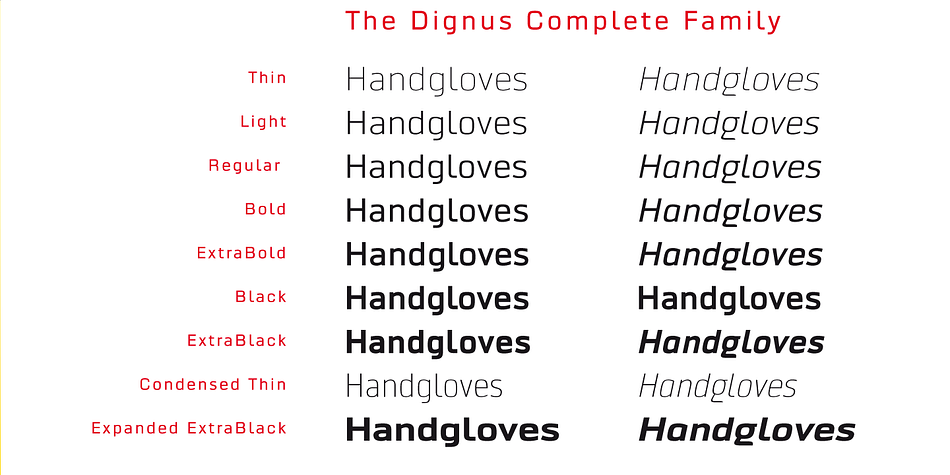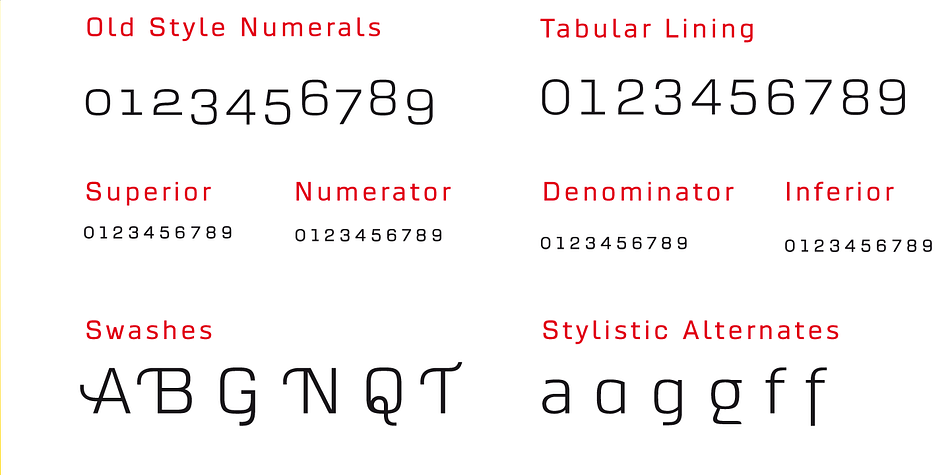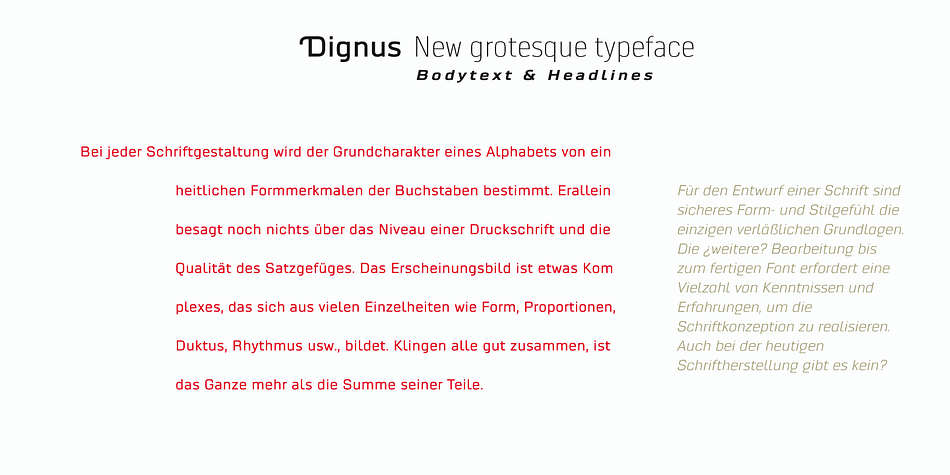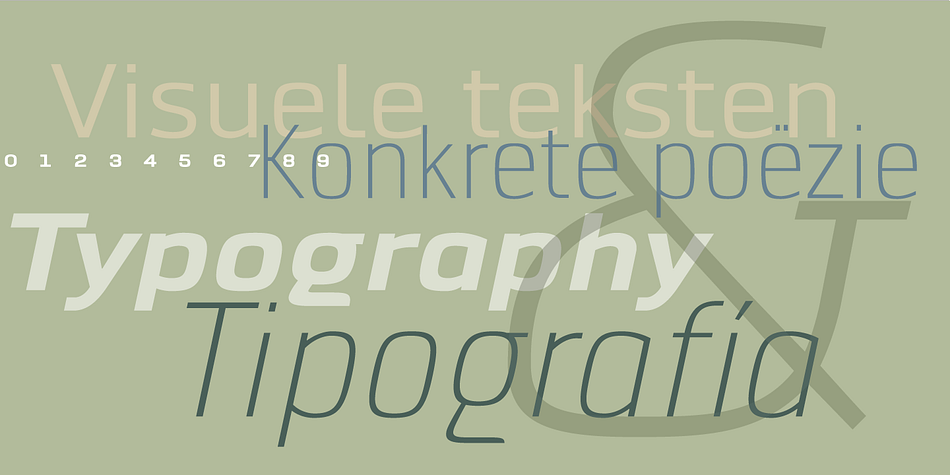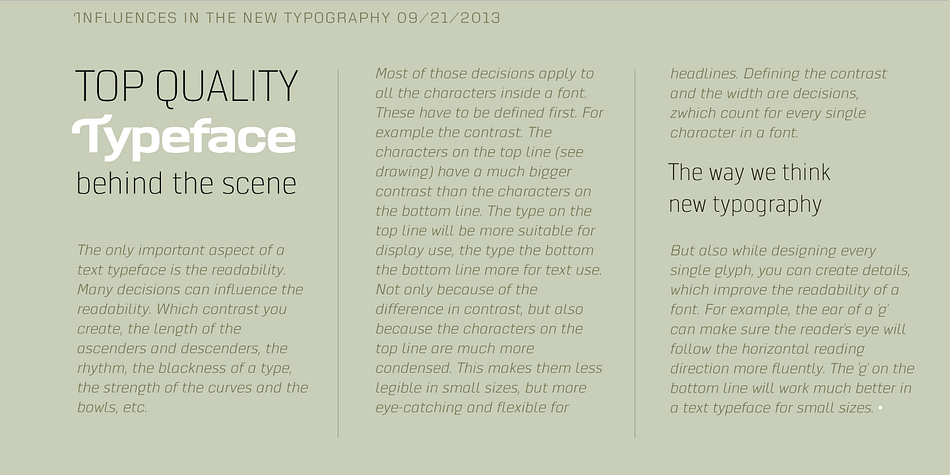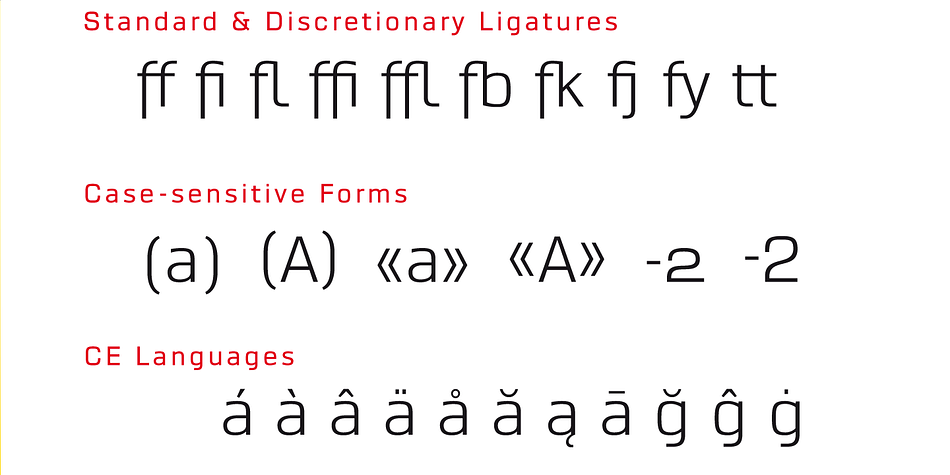
Designed by Olcar Alcaide, Dignus is a sans serif font family. This typeface has eighteen styles and was published by Eurotypo.
The design of the Dignus font was inspired in two clever and famous typefaces: Bank Gothic and Microgramma.
Bank Gothic designed by Morris Fuller Benton for ATF in 1930.
Microgramma typeface designed by Alessandro Butti and Aldo Novarese for Nebiolo in 1952.
Those typefaces were based on a stable rectangular shape with rounded corners, denoting the constructivist heritage and technological spirit of ‘50. We’d intended to review that typographic scenery with our contemporary point of view, aiming to obtain the formal synthesis of the signs and increase its legibility.
Dignus fonts support Central, Eastern and Western European languages. Each font comes with full OpenType features like: standard and discretional ligatures, swashes, stylistic alternates, old style numerals, Tabular figures, numerators, denominators, scientific superior - inferiors, Case sensitive forms and vectors.
The Dignus fonts include 7 weights, from Thin to ExtraBlack. The family is completed with condensed, expanded version and italics.